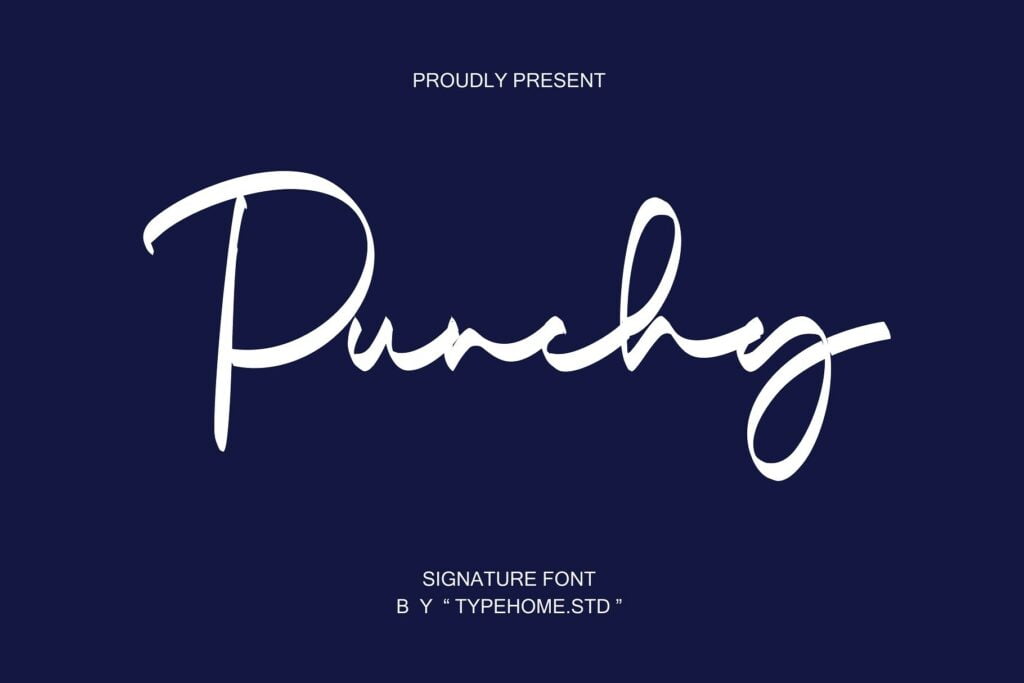
Punchy Font
Punchy is a trendy and casual script font. No matter the topic, this font will be an incredibly asset to your fonts’ library, as it has the potential to elevate any creation.
Punchy Handwritten Script Font